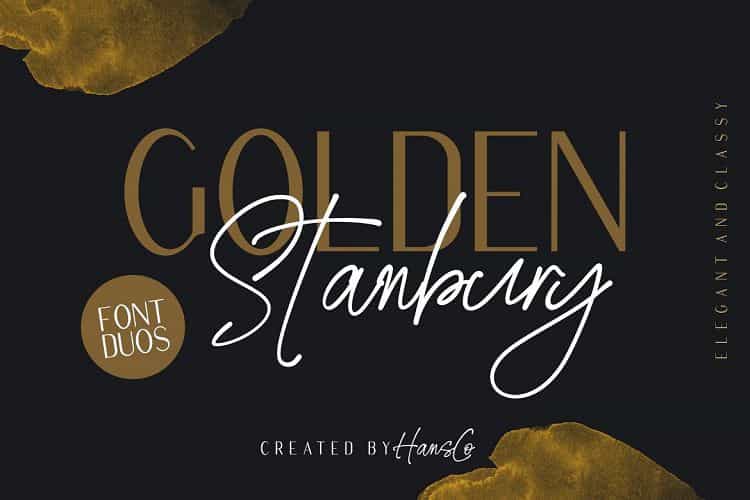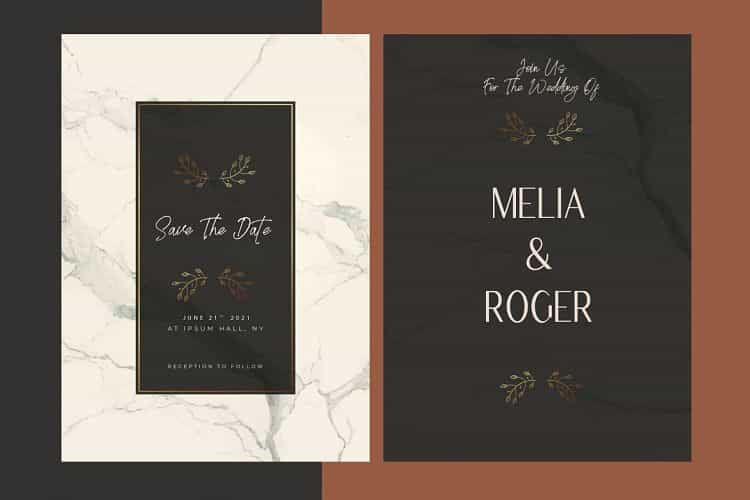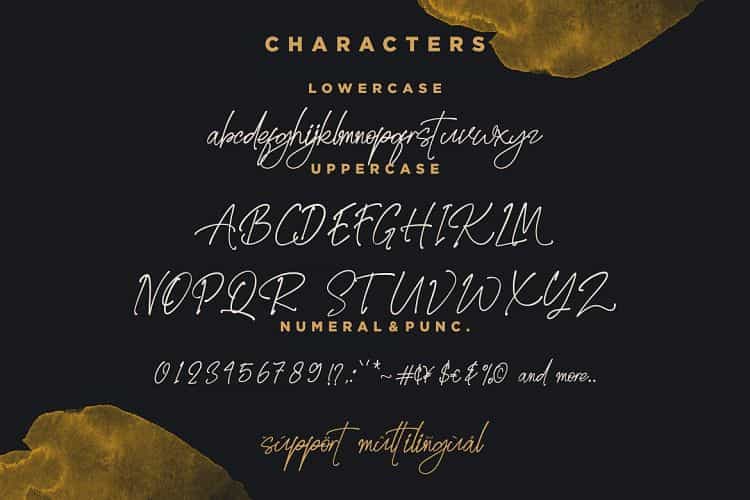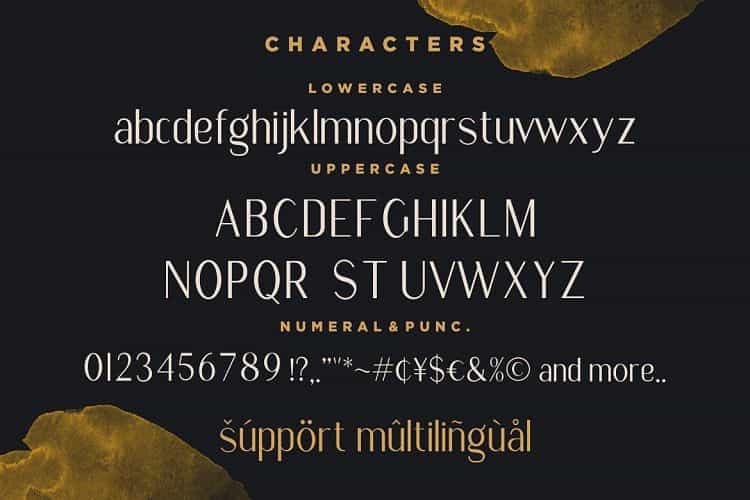
Golden Stanbury is a stylish and refined font duo with the modern twist. This font which is the signature one for a ballpoint style makes you look sleek and elegant in your logos, business card, wedding invitations, quotes, advertisements etc. Make today something magnificent with Golden Stanbury.